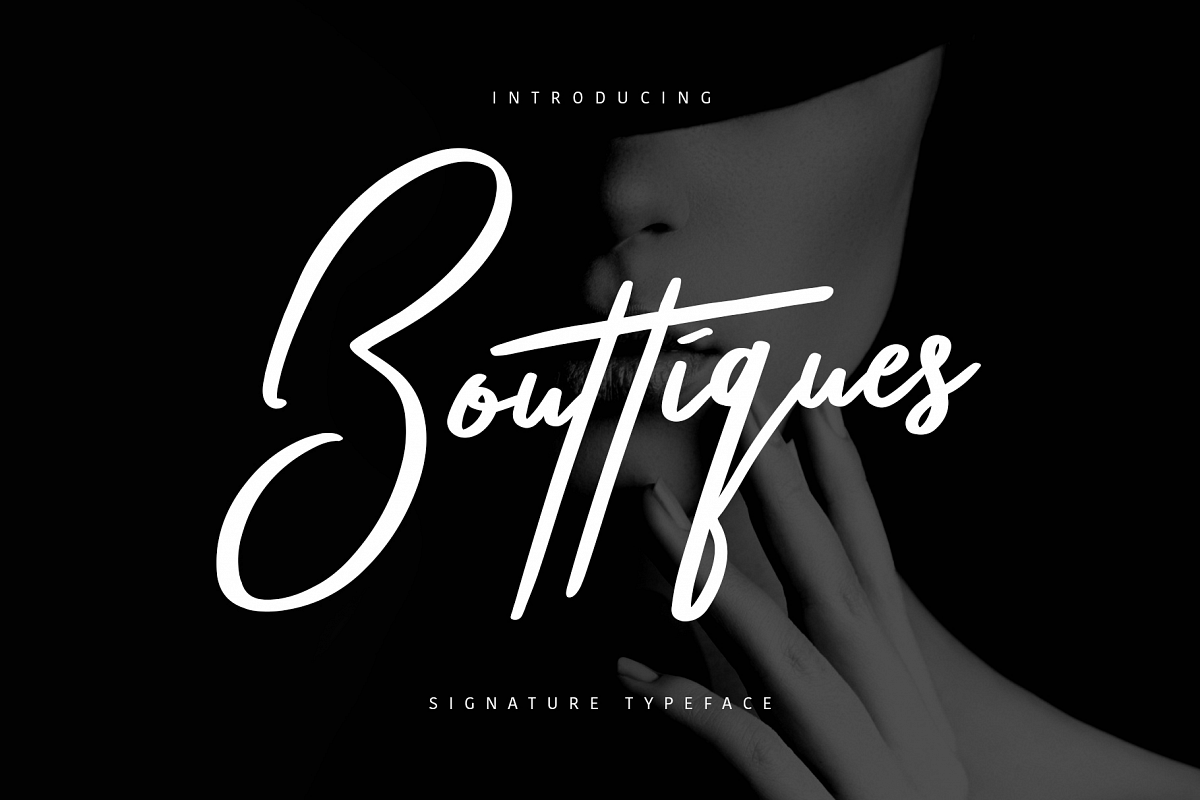
Give your designs an authentic handcrafted feel. "Bouttiques" is perfectly suited to signature, stationery, logo, typography quotes, magazine or book cover, website header, clothing, branding, packaging design and more. Included Stylistic Alternates and Ligatures.